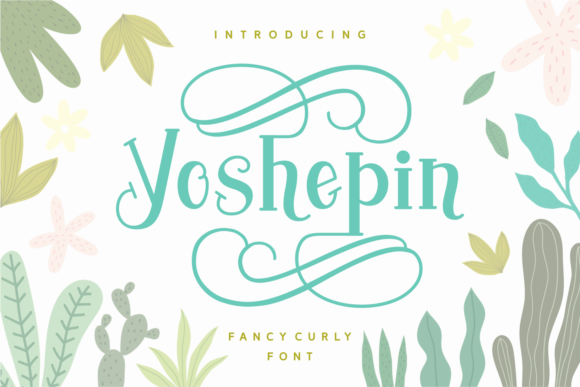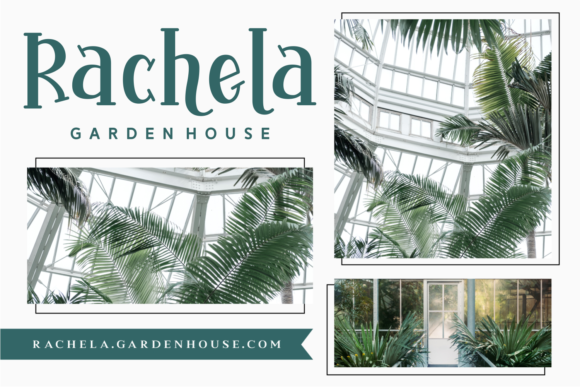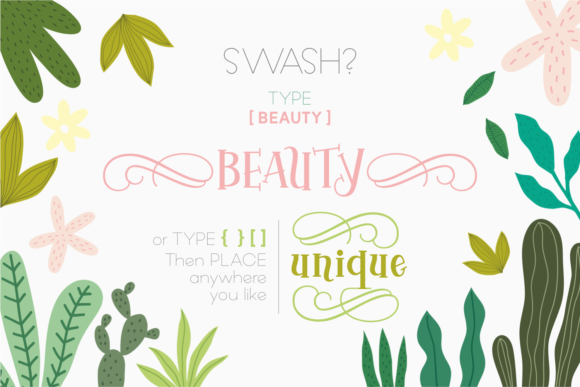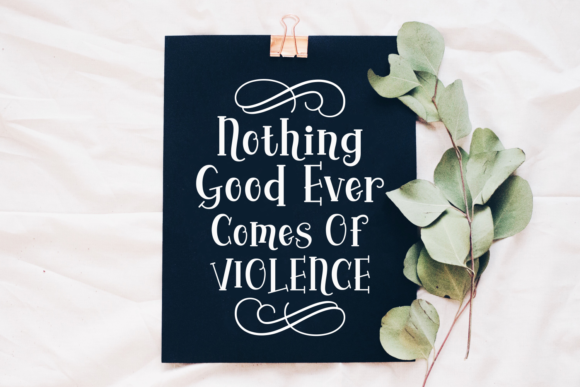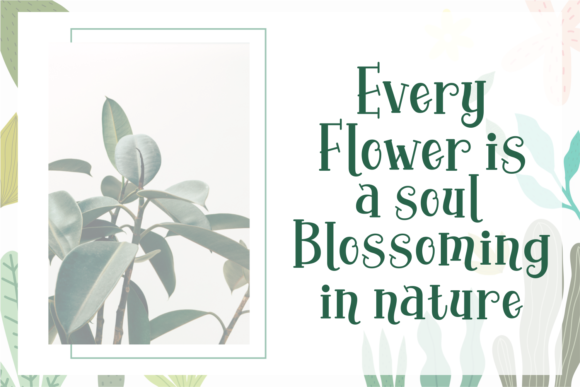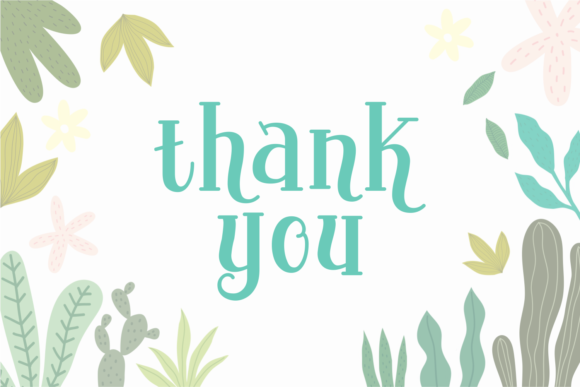
Yoshephin Font
About Yoshephin Font
Yoshephin is a beautiful, fancy font. With its curly letters, Yoshephin will give your design a elegant and luxurious look. Yoshephin is a versatile font that works in modern and throwback designs, the possibilities are endless!